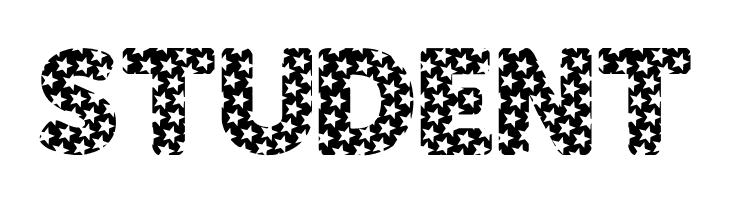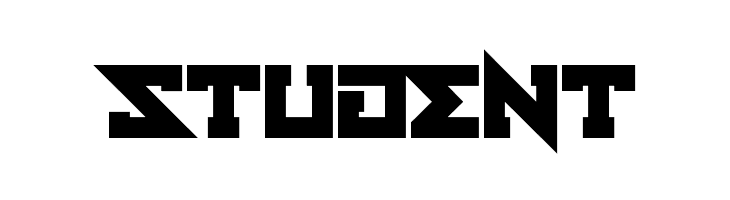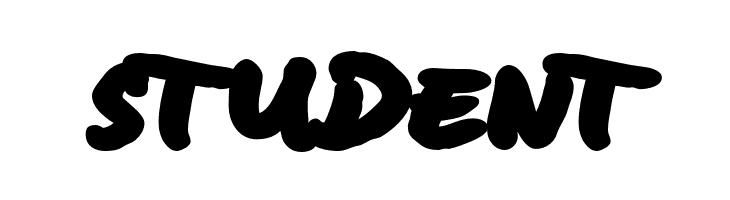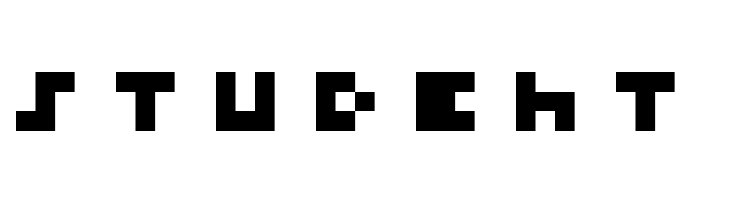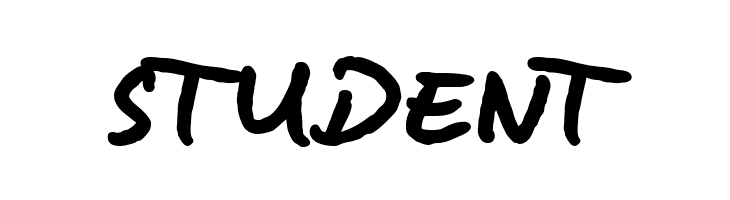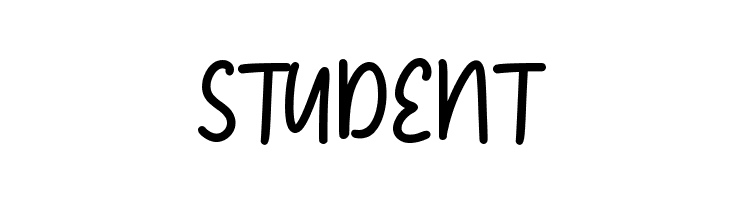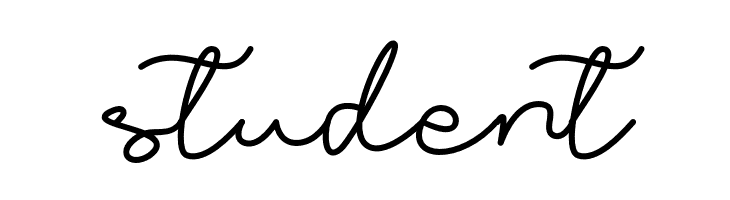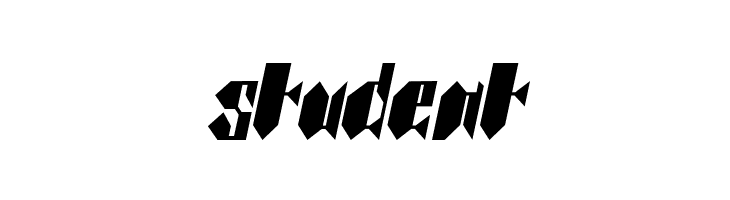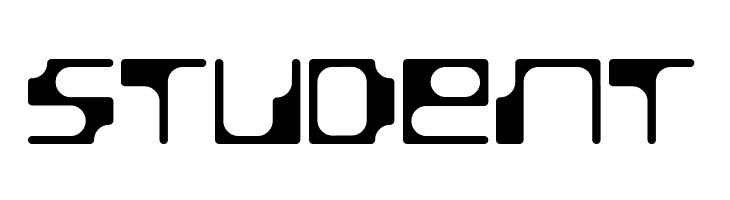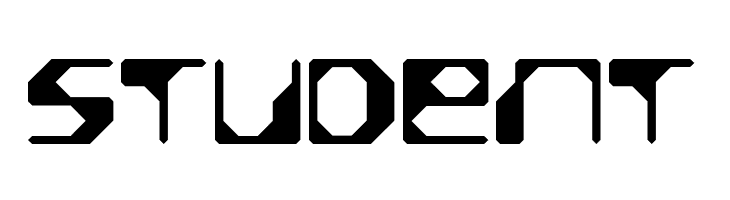
A bold, handwritten font with a dynamic and energetic style.
A bold, handwritten font with thick, rounded strokes and a playful style.
A bold, expressive font with thick, rounded strokes and a playful, modern style.
A playful, handwritten-style font with a casual and approachable feel.
An elegant, cursive script font with flowing, refined letterforms.
A classic serif font with modern elegance and refined letterforms.
An elegant script font with flowing, interconnected cursive letterforms.
A modern, geometric sans-serif font with clean lines and a minimalist aesthetic.
A bold, modern sans-serif font with clean lines and a slightly condensed style.
A classic serif font with a modern twist, offering elegance and versatility.
A refined and elegant font with thin, uniform strokes and generous spacing.
A playful, handwritten font with thin strokes and a casual style.
A thin, hand-drawn font with a whimsical and airy style.
A futuristic, angular font with bold, geometric shapes.
A bold, star-patterned decorative font ideal for playful designs.
A bold, aggressive font with sharp, angular lines and dynamic slant.